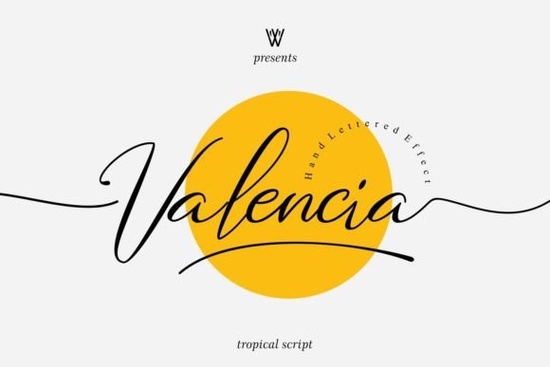
If you’ve been searching for a handwritten font that feels personal, graceful, and just a little bit romantic, you might want to take a closer look at Valencia Font. It’s the kind of typeface that doesn’t shout for attention it invites you in with soft curves and natural flow. Whether you’re designing wedding stationery, branding a small business, or crafting greeting cards for Etsy, this script brings warmth without feeling overdone.
What makes Valencia stand out is how effortlessly it adapts. The strokes feel like they were drawn by hand not too rigid, not too wild. You’ll find it especially useful when your project calls for elegance with personality. Think place cards at a garden wedding, boutique logo lettering, or even packaging labels for handmade soaps or candles.
Who is this font best suited for?
If you run a print-on-demand shop or sell digital designs on platforms like Creative Market or Etsy, fonts like Valencia can become reliable staples in your toolkit. Small business owners who handle their own branding will appreciate how approachable yet polished it looks. And if you’re a hobbyist making birthday cards or scrapbook layouts, you’ll love how quickly it adds charm without needing advanced design skills.
It pairs beautifully with clean sans-serifs for contrast try pairing it with something minimal like Montserrat or Lato if you need balance. For more artistic projects, consider combining it with other script styles like Artistic Signature or Strawberry Smoothie to layer textures and moods.
How does it compare to similar script fonts?
Valencia sits comfortably between formal calligraphy and casual handwriting. If you’ve used Brittany, you know that one leans slightly bolder and more structured. Melody Tunes, on the other hand, dances with more whimsy and bounce. Valencia finds a sweet spot elegant enough for weddings, relaxed enough for everyday crafts.
Here’s a quick way to think about it:
- For luxury or high-end events pair Valencia with gold foil mockups or serif body text.
- For playful or youthful designs combine it with rounded sans-serifs or pastel color palettes.
- For branding or logos keep spacing tight and avoid all-caps unless you’re going for contrast with a bold sans-serif underneath.
Any tips for using it well?
A few practical suggestions to get the most out of it:
- Don’t overcrowd it. Script fonts breathe best with space. Give your letters room especially in logos or headers.
- Use OpenType features if available. Some versions include alternates or swashes. Toggle those in your design software for extra flair.
- Test readability at small sizes. While beautiful in headlines, scripts can get muddy in tiny print. Stick to display use unless you’re confident it stays legible.
- Layer with texture. Try placing it over watercolor backgrounds, linen textures, or subtle grain it enhances the handmade vibe.
Where can I see it in action?
One popular trend? Using it for monograms or single initials on tote bags and journals. The flowing tail on the capital “V” or “L” makes it especially photogenic for product mockups.